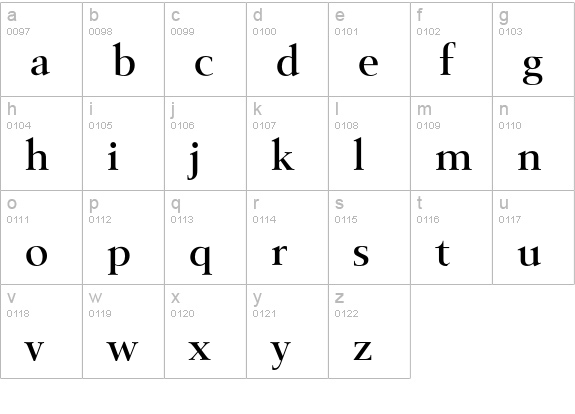
Belfast-Medium is a balanced, medium-weight variant in the Belfast typeface family \xE2\x80\x94 well suited to sub-headlines, navigation, and balanced editorial work.
Belfast-Medium font is a modern and versatile typeface that exudes elegance and sophistication. With its clean lines and balanced proportions, this font is perfect for a wide range of design projects, from branding to editorial. The medium weight of Belfast-Medium strikes the perfect balance between readability and style, making it an ideal choice for headlines, body text, and everything in between. What sets Belfast-Medium apart is that it is available for free download at FontsMarket.com, making it accessible to designers and creatives of all levels. Whether you're working on a personal project or a client's brief, Belfast-Medium is a reliable and stylish choice that will elevate your designs to the next level. Don't miss out on the opportunity to add this beautiful font to your collection and bring your creative vision to life. Download Belfast-Medium today and unleash your creativity!